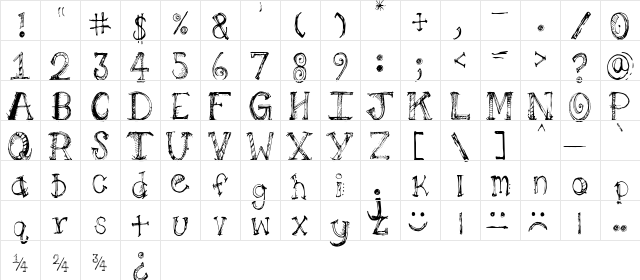
PilotLLJ Regular
Foundry: Lindsey Johnson
Design Context for PilotLLJ
PilotLLJ is a composed and adaptable typeface that performs quietly and consistently across a wide range of design contexts.